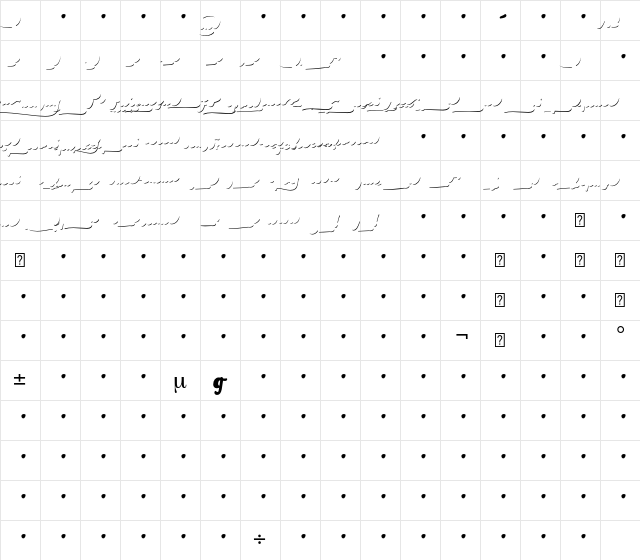
Bello Words Shadow Regular
Design Context for Bello Words Shadow Typeface
Bello Words Shadow is built around its visual character rather than neutral utility — its distinctive forms are designed to make an impression at display sizes.
Font Pairing: Pair with a clean neutral sans-serif for body copy to let Bello Words Shadow's character lead without overwhelming the composition.
Pro Tip: Treat Bello Words Shadow as the centrepiece of your typographic hierarchy. One strong heading set in a decorative face can carry an entire layout.